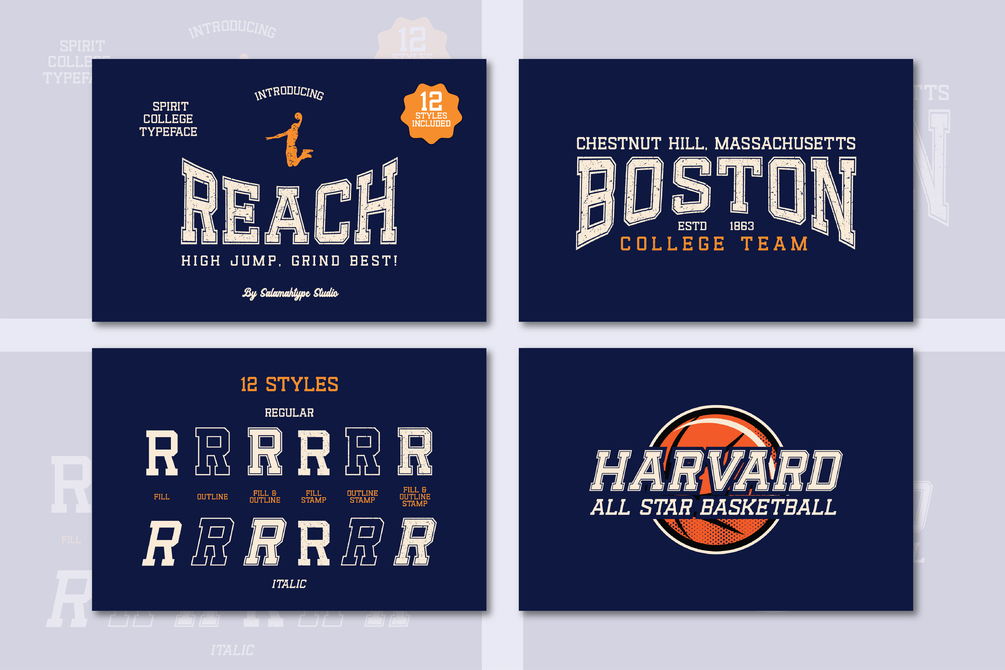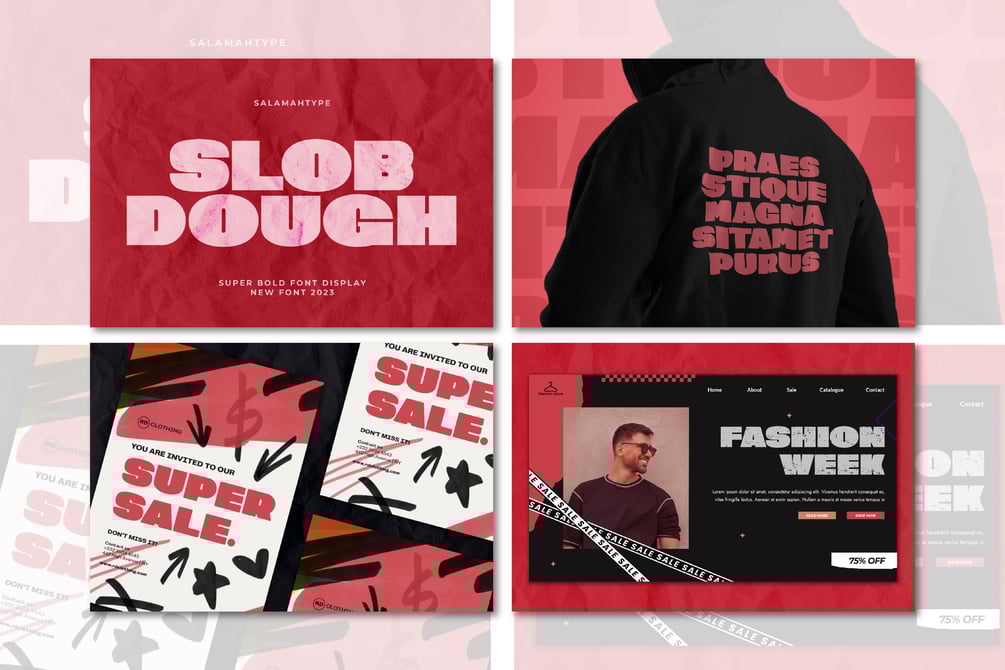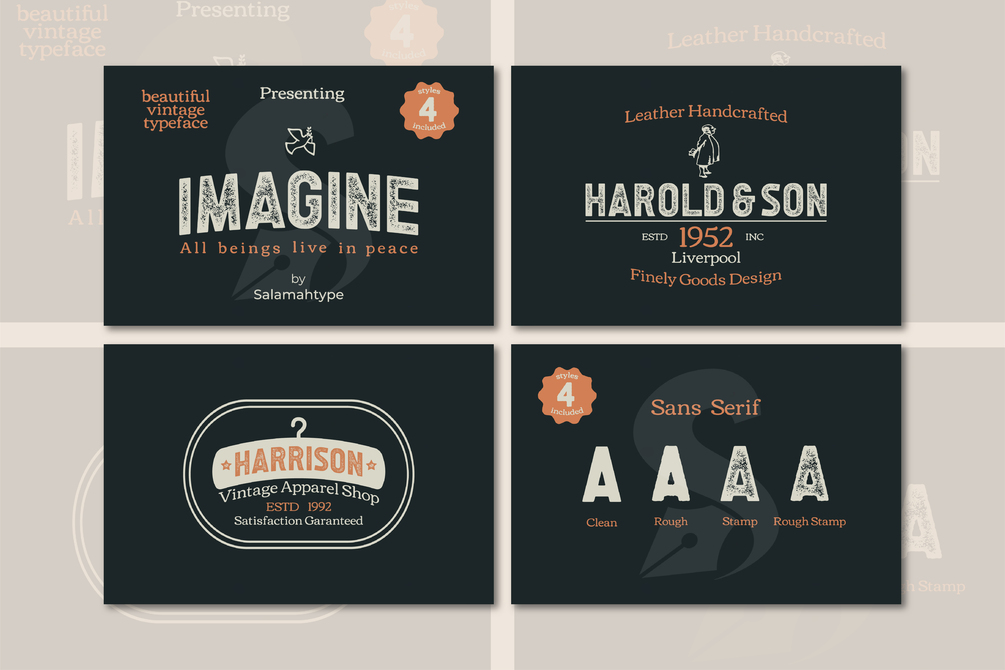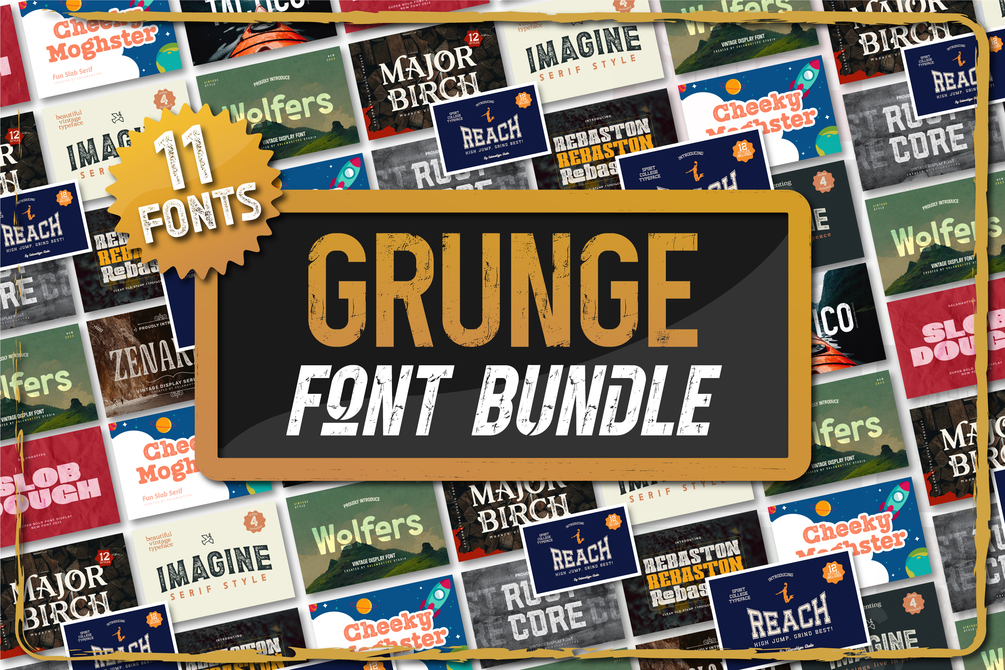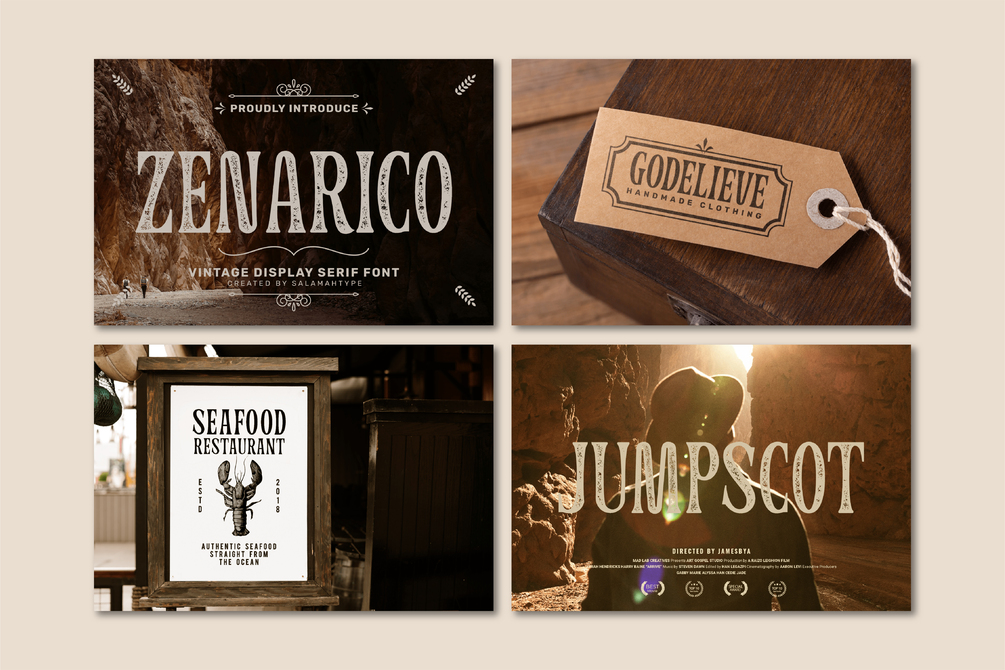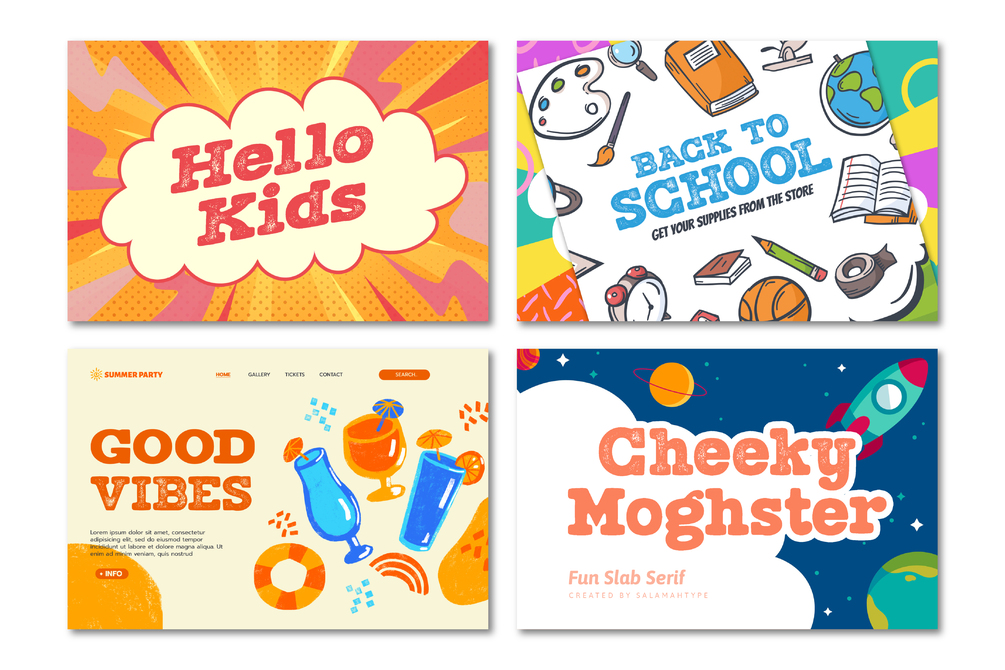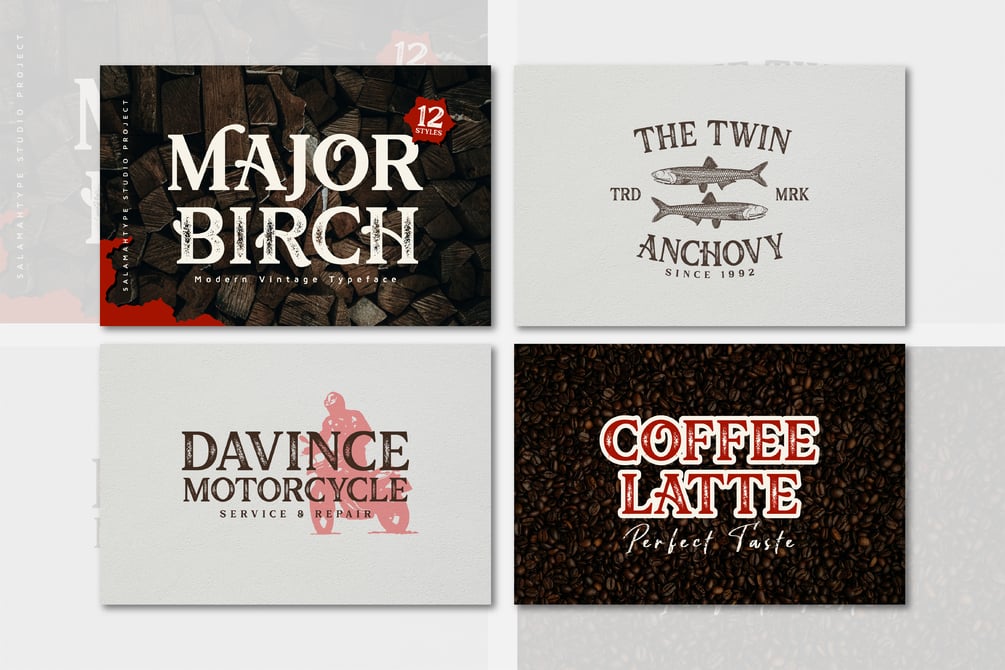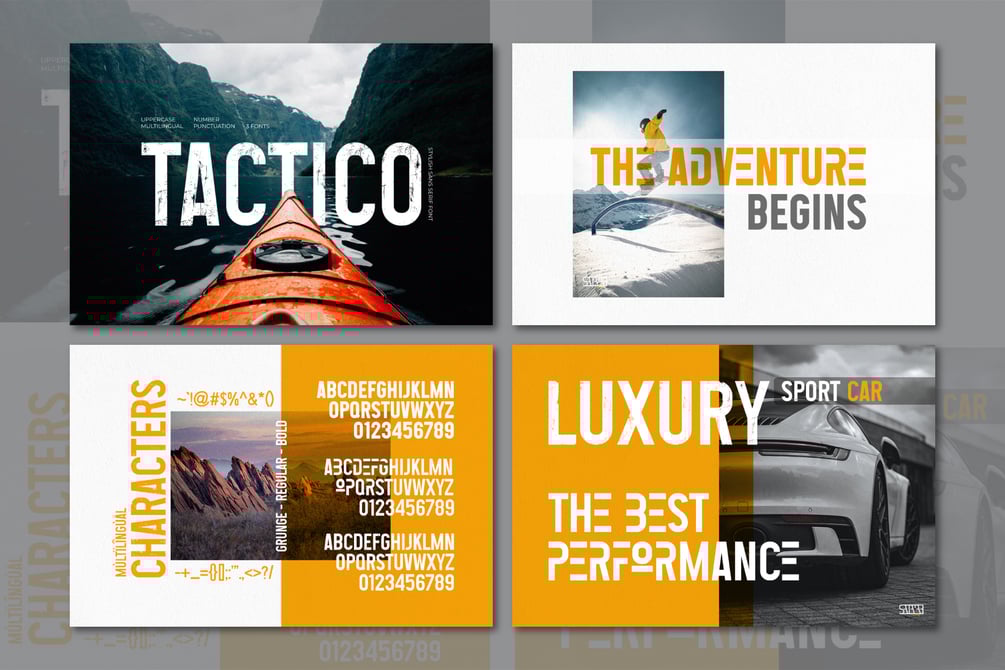
11 Fonts - Grunge Textured Font Bundle
This bundle includes 11 textured fonts with a vintage/retro theme — a curated selection of 11 fonts from Salamahtype. This offer may be available for a limited time, so take the opportunity now to get all these cool fonts in a single purchase. Please select the appropriate license for your use.